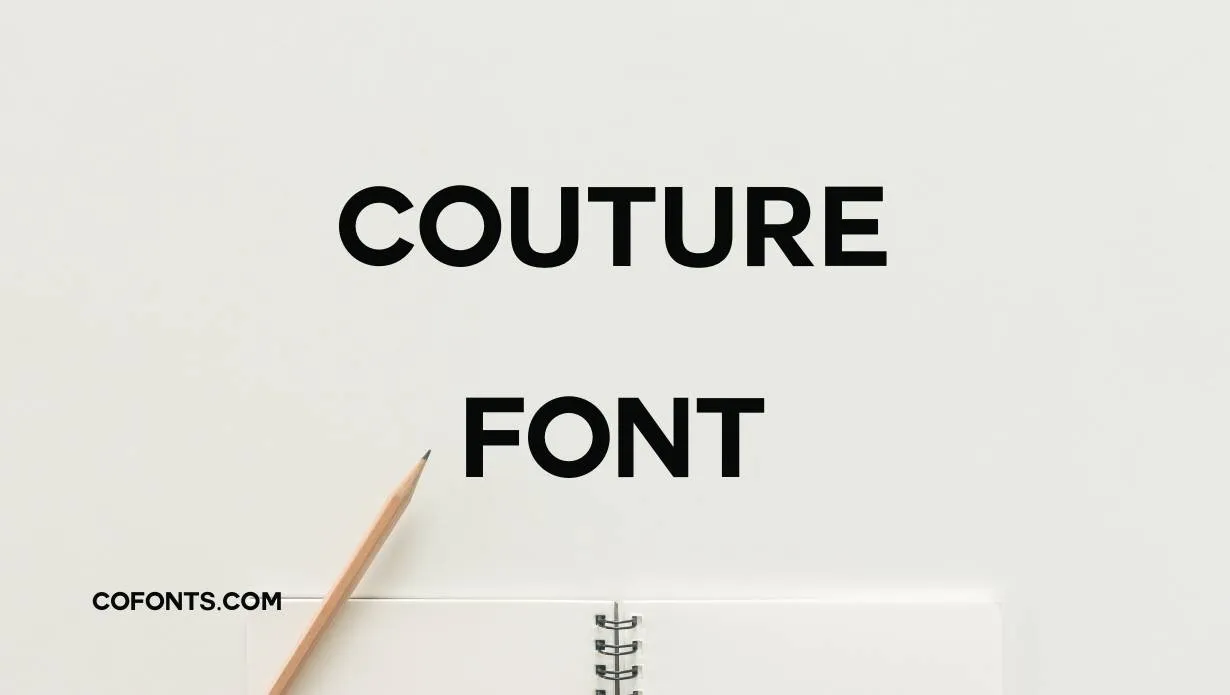
Here, we are going to present a gorgeous typeface that is famous with the name Couture Font. The primary designer of this typeface was Chase Babb. This typeface belongs to the category of sans serif font family. This family has neat and clean textures.
Usage of Couture Font
The awesome and marvelous typeface is used for plenty of projects. You can use this typeface for many designs like greeting cards, business cards, posters, Banners layout, and so on. All YouTubers use it in their video editing and photo editing. It is perfect for use in thumbnails.
If it is your desire to get a good response from all of your visitors then use Roboto font with the pairing of this family. In various official environments, this family is making reports, records, PowerPoint presentations, and so on. For different social media posts, this family is a perfect choice.
Couture Font Family View
Name | Couture Font |
Designer | Chase Babb |
Style | Sans-serif |
Who is the designer of Couture Font?
Chase Babb is the creator of this font family. He is a very famous designer in the font industry.
Can I use Couture typeface for my Poster designs?
Yes, obviously this family is used for different types of designs like posters, emblems, wall murals, and so on.